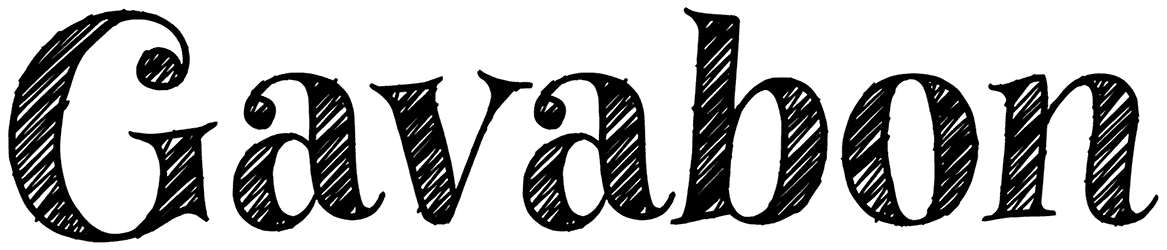
Gavabon Font
The Gavabon is a retro font whose form keeps your eyes open and is available in three versions. The first version has a sketchy design, the second one is colored, and the other is just a frame.
The Gavabon’s characters have a slight curve and a fun feeling. Thus, this font sends a friendly vibe to the viewers, and it can be useful in various cases such as posters, social media posts, and comic books.